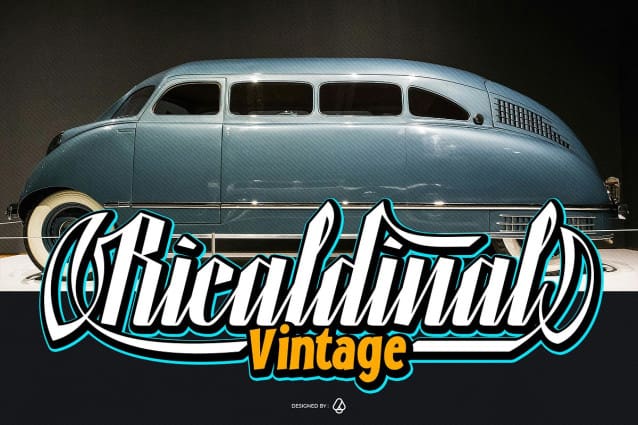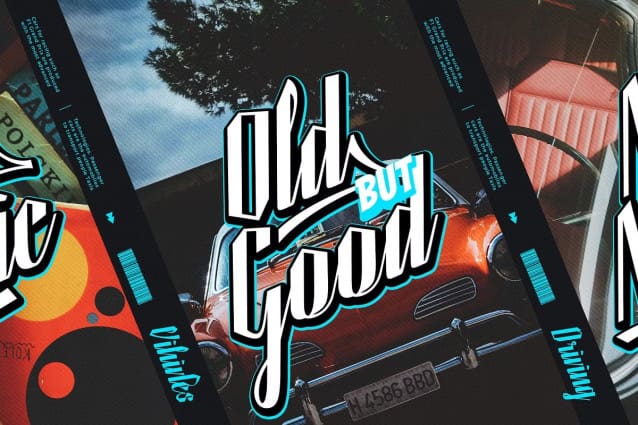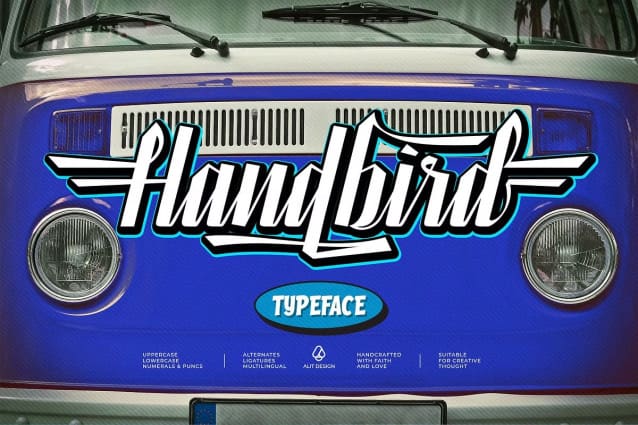
Handbird Script Font
Handbird Script Font – where elegance meets intensity. Designed for those who dare to be bold, this font is perfect for adding a touch of fierce sophistication to your projects. With a total of 785 characters, Handbird Script Font offers versatility and dynamism that truly set your designs apart.
Themes & Features
Fierce Script: Handbird Script Font embodies the spirit of fierce elegance. Its sharp edges and bold strokes give your text a commanding presence, making it ideal for headlines, logos, and branding materials that need to stand out.
Speedy: Capture the essence of movement with Handbird’s speedy design. The fluidity and swift strokes of this script font convey a sense of urgency and dynamism, perfect for sports brands, automotive designs, and any project that requires a fast-paced look.
Dynamic: Versatility is at the heart of Handbird Script Font. Its dynamic nature allows it to adapt to various design needs, whether you’re creating eye-catching posters, social media graphics, or stylish apparel. The font’s energetic flow brings a lively and engaging feel to your text.
Ligatures: Handbird Script Font includes an extensive set of ligatures, ensuring smooth and natural connections between letters. These ligatures enhance the overall aesthetic of your text, providing a seamless and professional appearance.
Swash: Add a touch of flair with Handbird’s swash characters. These decorative elements offer extra embellishment, perfect for adding a luxurious touch to wedding invitations, greeting cards, and other special projects.
785 Characters: With an impressive 785 characters, Handbird Script Font provides a comprehensive set of glyphs to cover all your design needs. This extensive character set includes uppercase and lowercase letters, numbers, punctuation, multilingual support, and a variety of stylistic alternates.